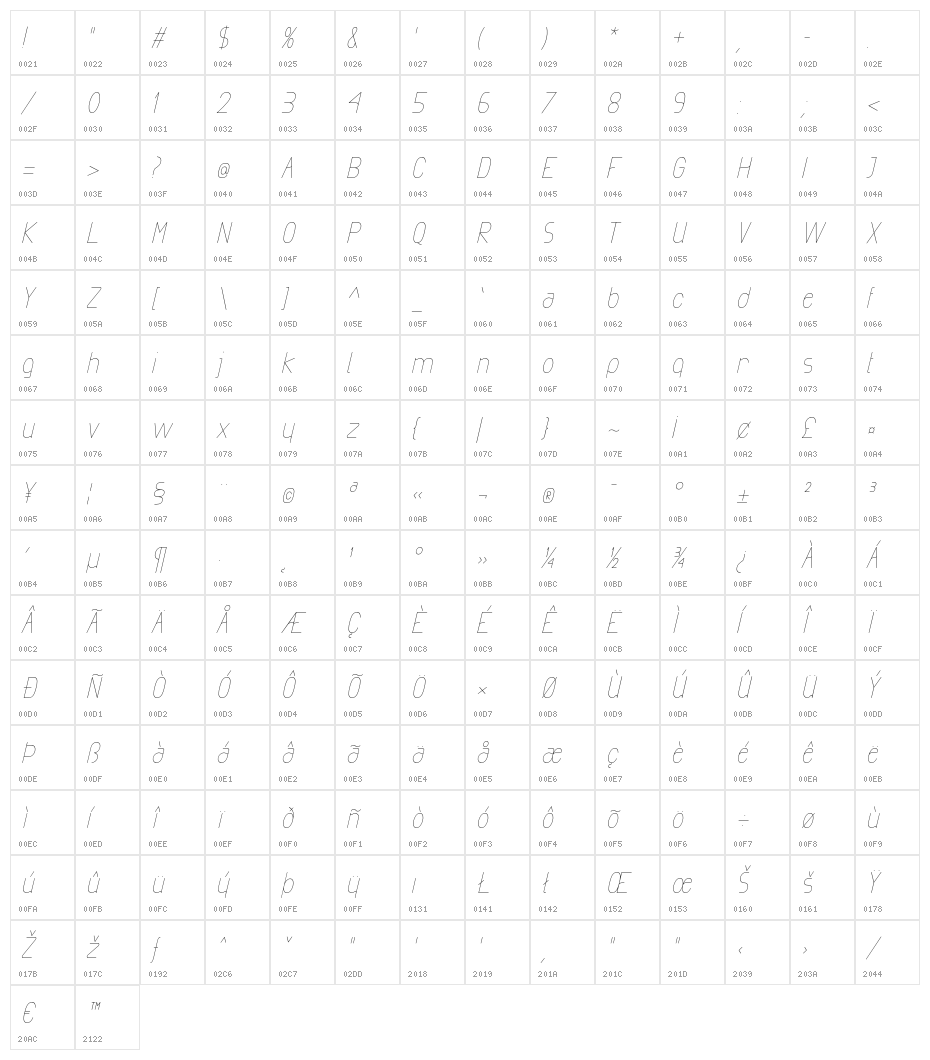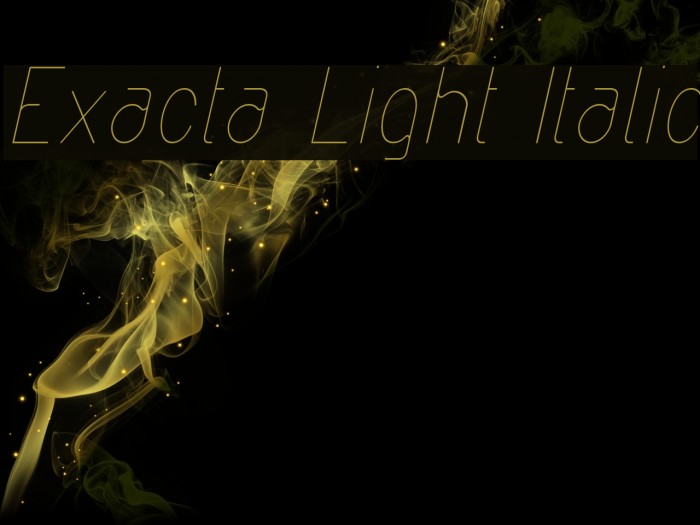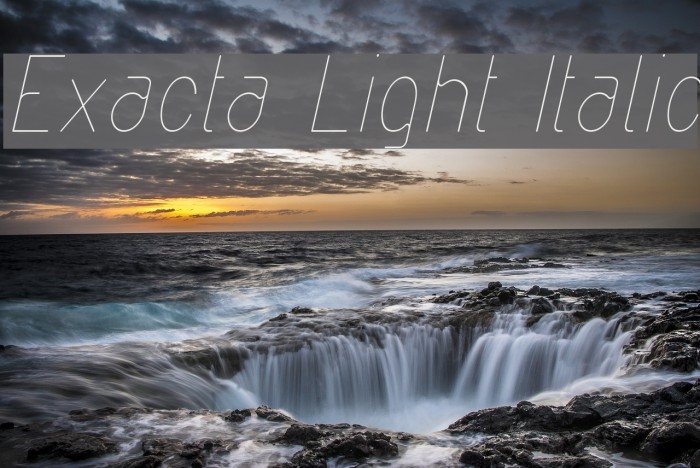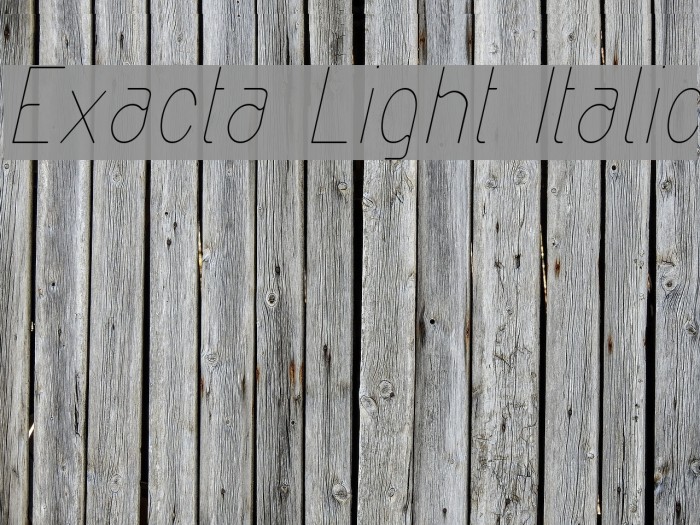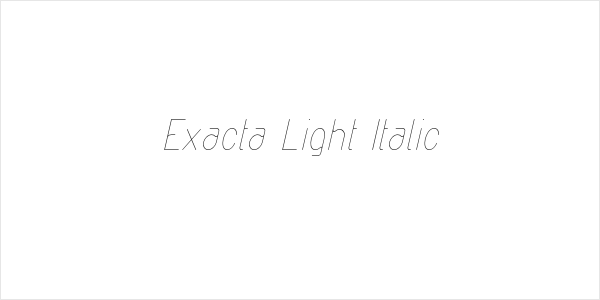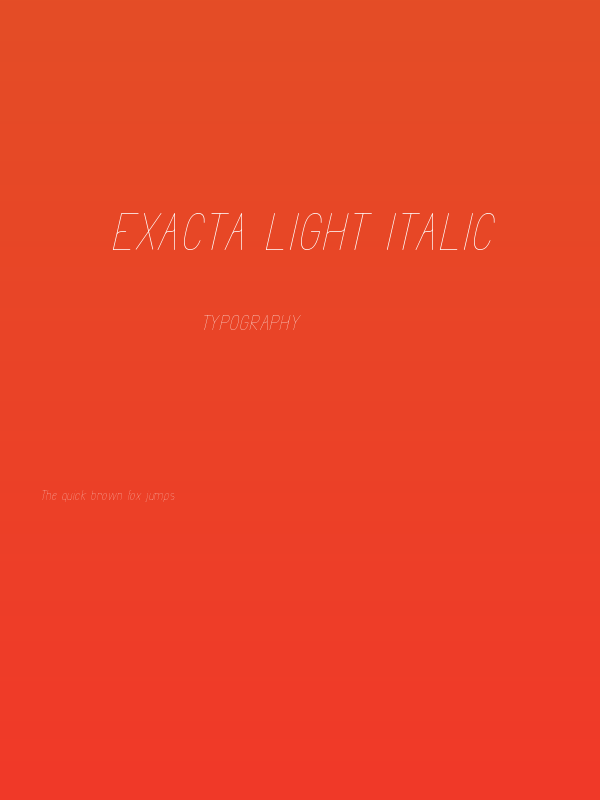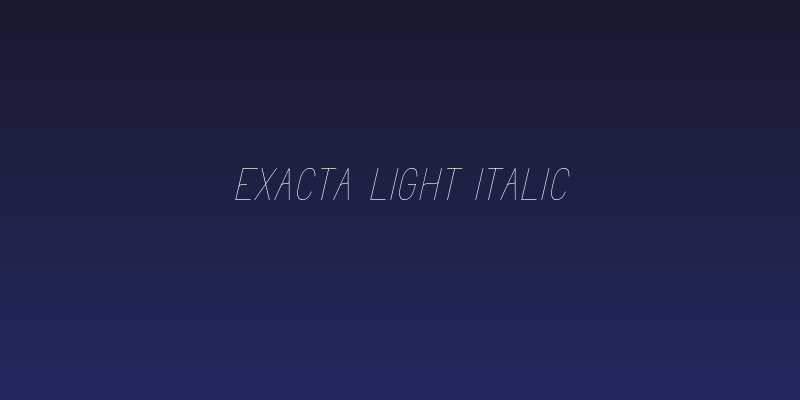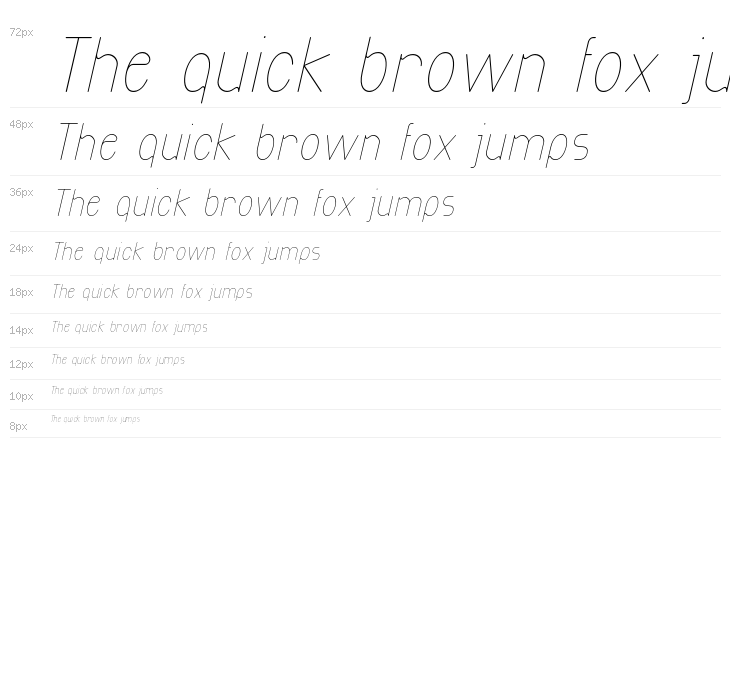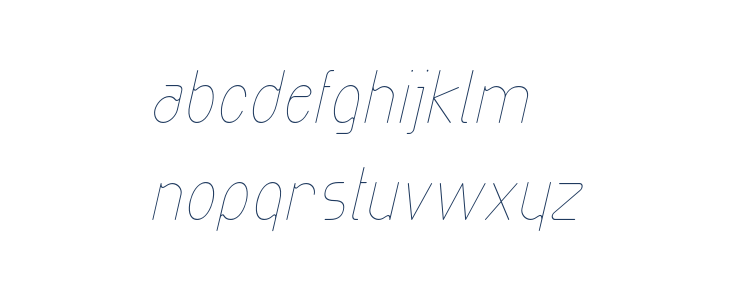
Exacta Light Italic Font
Exacta Light Italic Description
This font features a sleek and elegant design with a light and airy feel. The characters are slightly slanted, giving it an italicized appearance, which adds a dynamic and sophisticated touch. The strokes are thin and consistent, contributing to a clean and modern aesthetic. The uppercase and lowercase letters maintain a uniform style, with smooth curves and sharp angles that enhance readability. The numerals and special characters are designed to match the overall style, ensuring a cohesive look across all text elements.